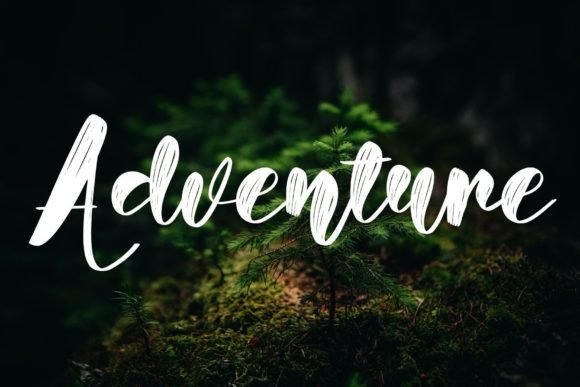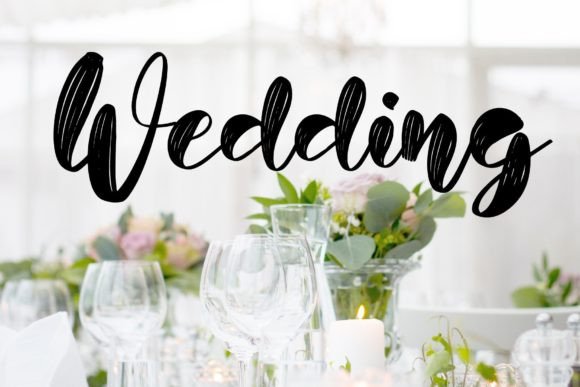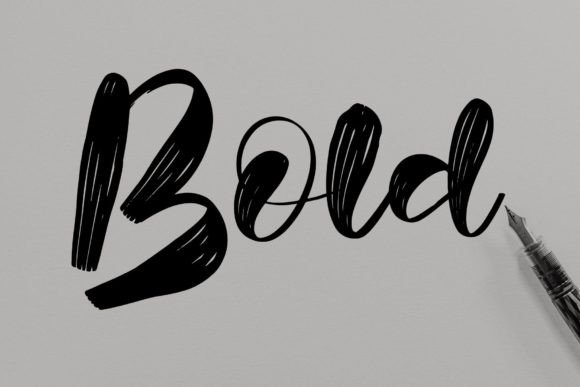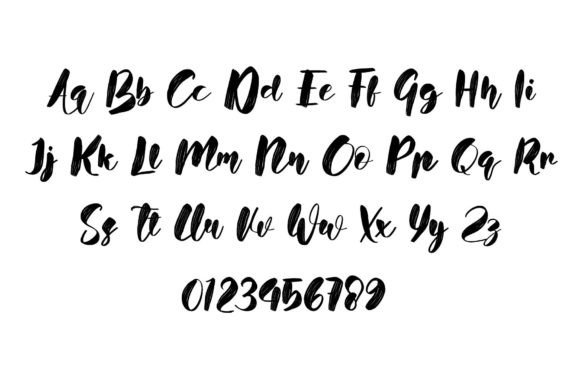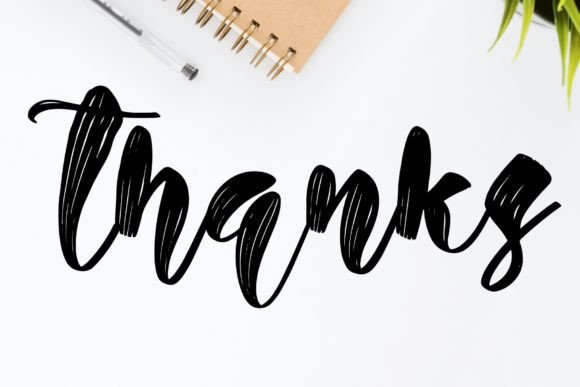
Introduction to Girls Font
Have you ever stared at a blank page, waiting for the perfect idea to strike? That’s exactly what happened to me when I first laid eyes on the Girls Font. Its whimsical charm and playful feel instantly sparked a creative project, and I knew I had to dive in and explore its possibilities.
As designers, we’re always on the lookout for high-quality design resources that can elevate our work and make it stand out from the crowd. The Girls Font is one such treasure – a fun and inviting handwritten font that’s perfect for creating eye-catching designs, from wedding invitations to branding materials. With its transparent background and free download option, it’s an absolute gem for any creative project.
Key Features of Girls Font
- High-quality design with transparent background, ideal for creative projects
- Unique, playful characters with a feminine touch, perfect for girls’ or women’s-themed designs
Honest Review: Girls Font
I recently had the chance to work with the Girls Font, a free download that I was excited to incorporate into my creative project. Overall, I was pleasantly surprised by the high quality of this design resource.
- What works well: ✨ The Girls Font is available in a variety of styles, making it a great option for designers who want to add some flair to their projects. I particularly liked the bold and playful feel of the font.
- What works well: ✨ The transparent background of the font made it easy to customize and work with, allowing me to focus on bringing my design vision to life.
Overall, I was impressed with the Girls Font and would definitely consider using it in future projects. While it may have some limitations, its high quality and versatility make it a valuable addition to any designer’s toolkit.
For the best results, use the Girls Font in combination with other high-quality design resources. Experiment with different font sizes, colors, and arrangements to create a unique and eye-catching design.
The Girls Font is perfect for a variety of design projects, including:
- Blog posts and articles
- Wedding invitations and party decorations